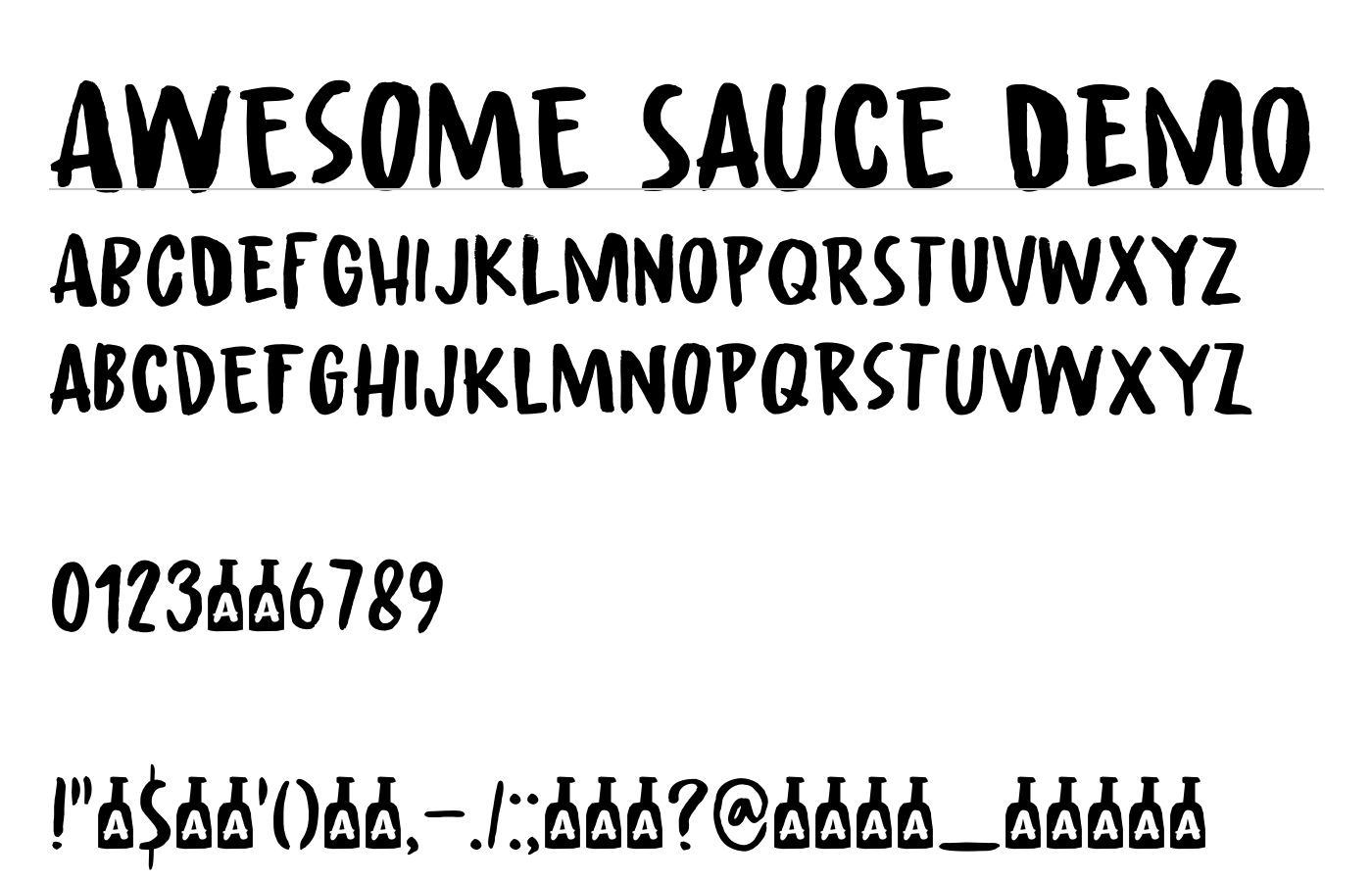
Awesome Sauce DEMO is a bold, hand-drawn sans serif font with a playful and casual personality. Its uneven stroke edges and tall, slightly condensed letterforms give it an energetic, informal feel that works great for fun branding, posters, and headlines where a lively, approachable tone is desired. This font stands out with its friendly, handwritten charm, making it perfect for creative projects that aim to capture attention with a relaxed and authentic style.
Awesome Sauce DEMO Font
About Awesome Sauce DEMO Font
| Font family | Awesome Sauce DEMO Font |